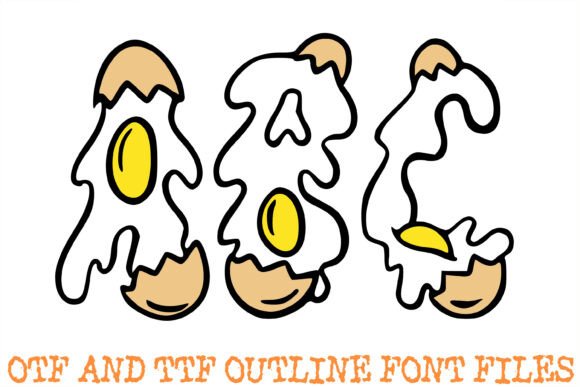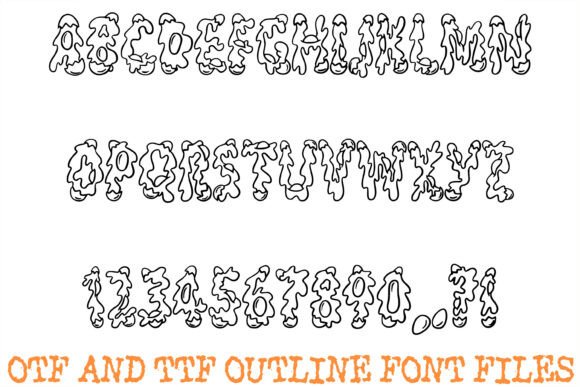
Cracked Egg Font: A Whimsical Display Typeface for Breakfast-Inspired Designs
Are you a designer or crafter looking for a unique and playful font to add a touch of whimsy to your breakfast-themed projects? Look no further than the Cracked Eggs Lettering Font, a hand-drawn display typeface that transforms the alphabet into a series of freshly cracked breakfast treats.
A Creative and Humorous Aesthetic
The Cracked Eggs Lettering Font is a one-of-a-kind typeface that features creatively illustrated letters with oozing egg whites, vibrant yellow yolks, and jagged brown eggshell fragments at the base and tips. This font is perfect for adding a dash of humor and personality to your designs, whether you’re creating a quirky logo for a breakfast cafĂ©, designing custom kitchen apparel, or crafting playful bakery branding.
Perfect for Brunch Menus and Morning-Themed Graphics
With its fluid, “dripping” silhouette, the Cracked Eggs Lettering Font is an ideal choice for brunch menus, farm-to-table kitchen decor, and morning-themed social media graphics. The font’s organic aesthetic is sure to delight food enthusiasts and add a touch of warmth and personality to any design.
A Unique and Artisan-Illustrated Look
Crafted with care and attention to detail, the Cracked Eggs Lettering Font delivers a unique, artisan-illustrated look that turns every word into a culinary conversation starter. Whether you’re a designer or crafter, this font is sure to inspire your creativity and help you create designs that stand out from the crowd.
Key Features of the Cracked Eggs Lettering Font
- Hand-drawn display typeface with a whimsical and playful aesthetic
- Each letter creatively illustrated with oozing egg whites, vibrant yellow yolks, and jagged brown eggshell fragments
- Fluid, “dripping” silhouette for a humorous and organic look
- Perfect for brunch menus, farm-to-table kitchen decor, playful bakery branding, and morning-themed social media graphics
- Ideal for designers and crafters looking for a unique and artisan-illustrated font
Design Inspiration and Ideas
The Cracked Eggs Lettering Font is a versatile typeface that can be used in a variety of design projects, from logos and branding to social media graphics and kitchen decor. Here are a few ideas to get you started:
- Create a quirky logo for a breakfast café or bakery
- Design custom kitchen apparel, such as aprons and tea towels, with a playful egg-themed design
- Develop a farm-to-table kitchen decor brand with a warm and inviting aesthetic
- Use the font to create eye-catching social media graphics for a food blog or restaurant
Tips for Using the Cracked Eggs Lettering Font
To get the most out of the Cracked Eggs Lettering Font, here are a few tips to keep in mind:
- Use the font in large sizes to showcase its creative and humorous aesthetic
- Pair the font with other playful and whimsical design elements to create a cohesive look
- Don’t be afraid to get creative and try out new and unexpected design ideas
The Cracked Eggs Lettering Font is a unique and playful typeface that’s perfect for designers and crafters looking to add a touch of whimsy to their breakfast-themed projects. With its creative and humorous aesthetic, fluid silhouette, and artisan-illustrated look, this font is sure to inspire your creativity and help you create designs that stand out from the crowd.